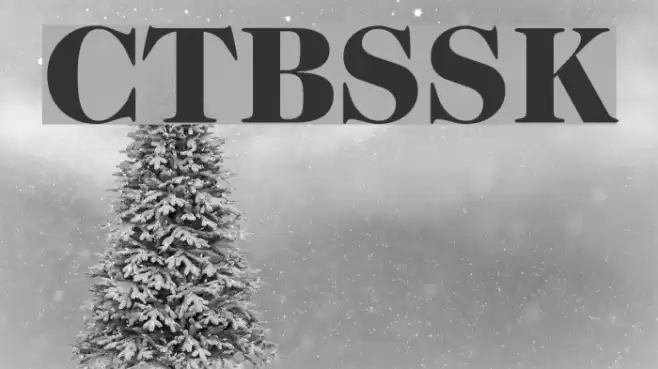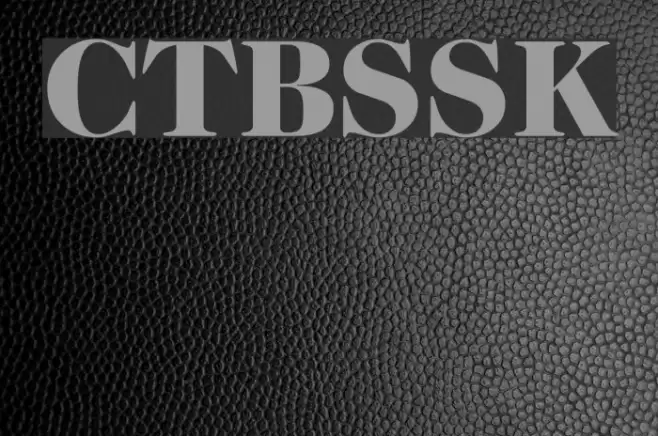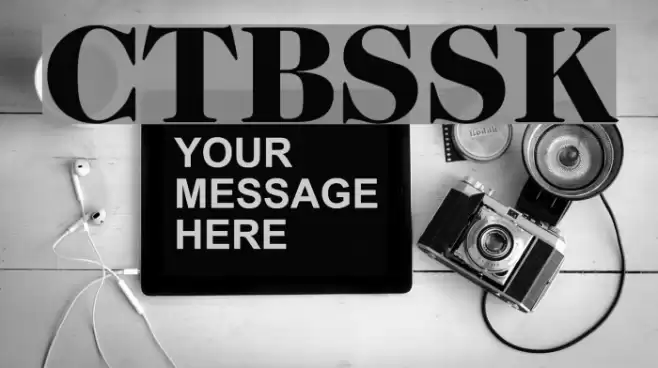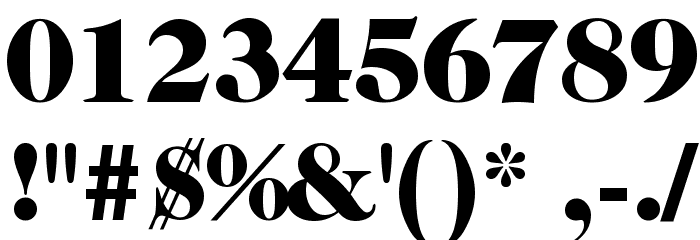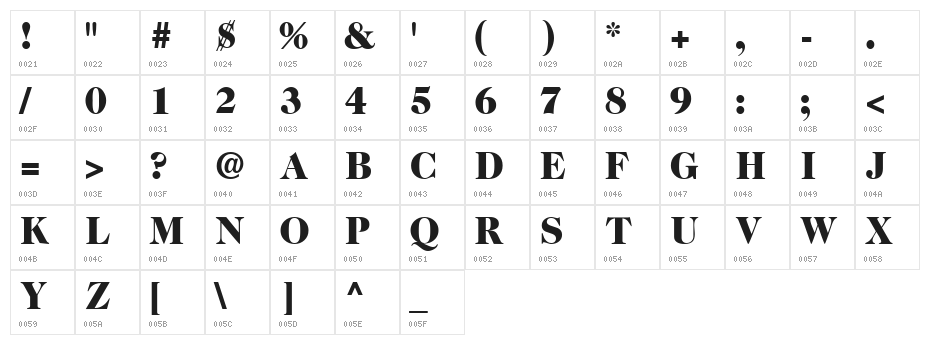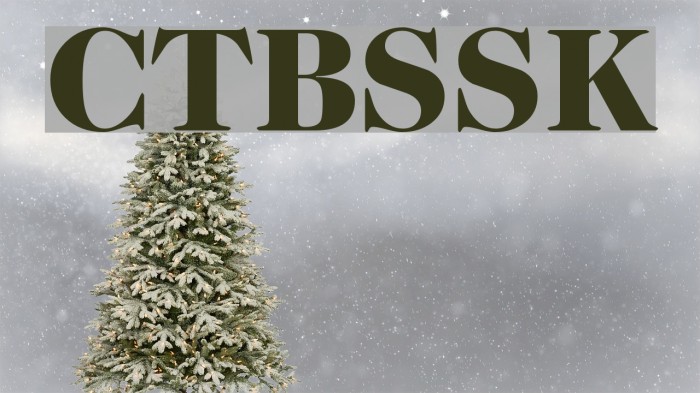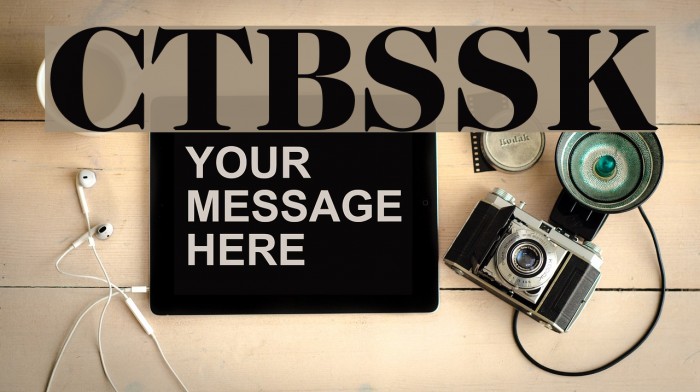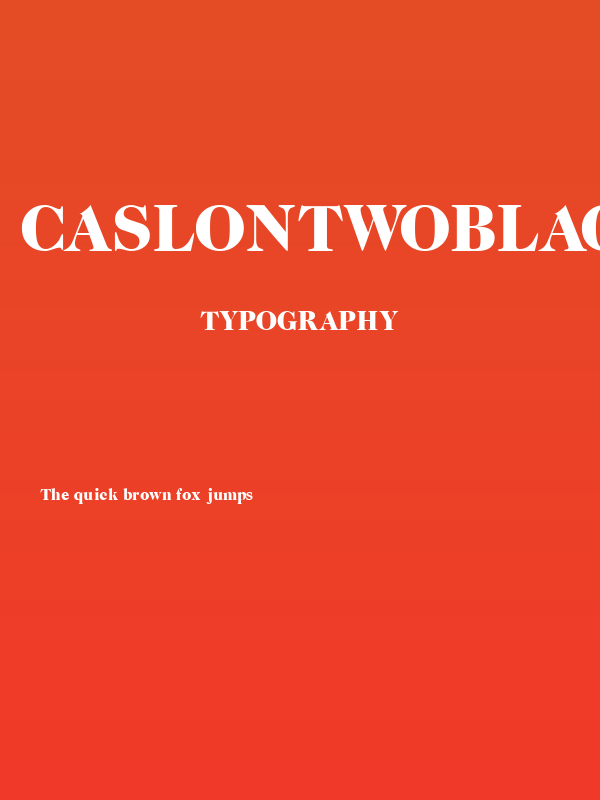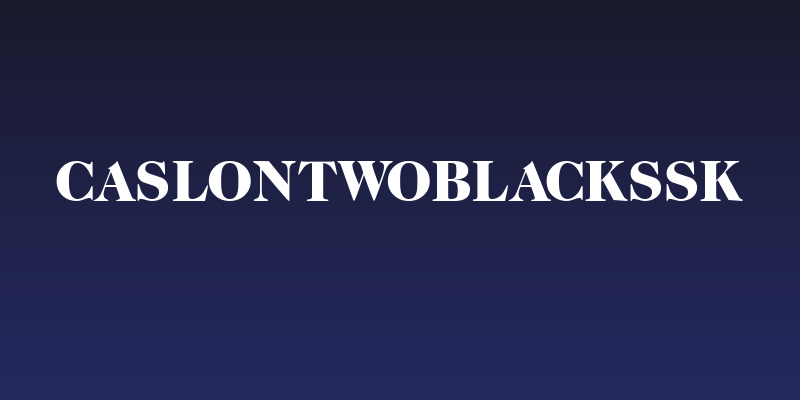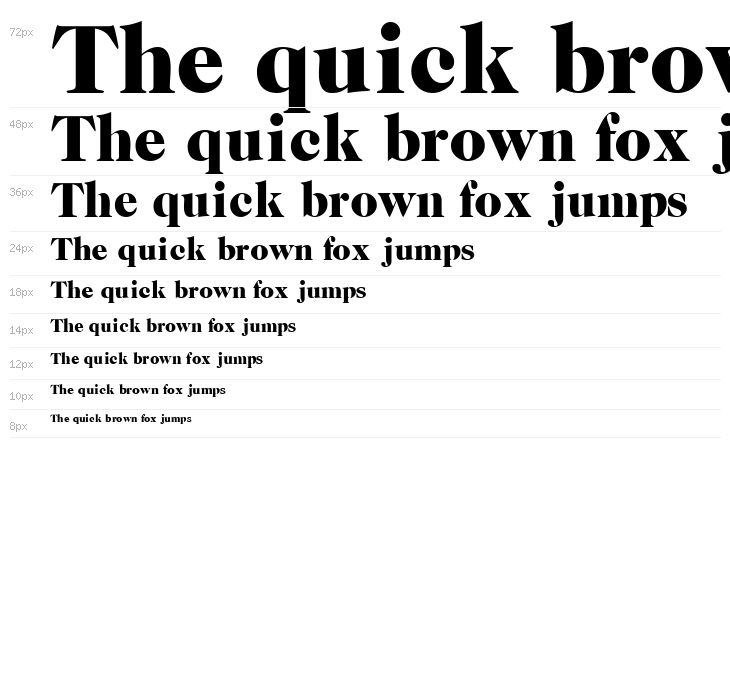
CaslonTwoBlackSSK Font
CaslonTwoBlackSSK Description
This font exhibits a classic serif style with strong, bold strokes and high contrast between thick and thin lines. The serifs are pronounced and slightly bracketed, giving it a traditional and authoritative appearance. The uppercase letters are robust and commanding, while the lowercase letters maintain a consistent weight and style. Numerals are clear and distinct, ensuring readability. The special characters are well-integrated, maintaining the overall aesthetic of the font. This font is ideal for projects that require a sense of elegance and formality.
A bold, high-contrast serif font with a classic and authoritative style from Uncategorized fonts.
- Proposed Projects: Ideal for book covers, formal invitations, branding, and editorial design.
- Overall Style: Classic
- Use Case: Headlines, Logos, Editorial design